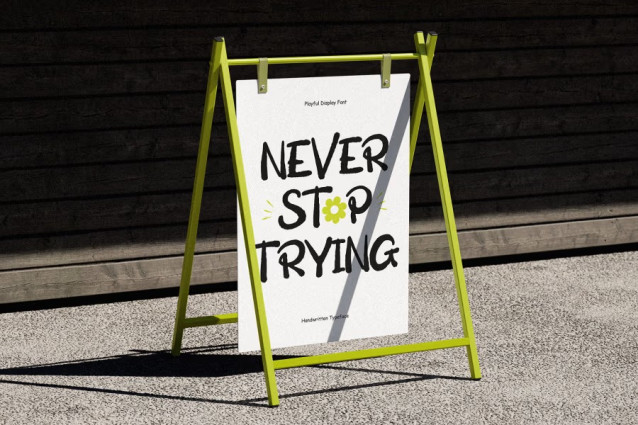
Bunny Carrotty Font
Bunny Carrotty Font is a playful handwriting font full of character and positive energy. With over 250 glyphs, this font comes with multilingual support, contextual alternates, and ligatures that make writing look more natural, expressive, and organic. The free and imaginative handwriting style makes Bunny Carrotty suitable for various creative design needs such as branding, packaging, quotes, posters, logos, social media content, and children’s designs. This font brings a fun, friendly, and casual feel, so it can make your message more lively and memorable.